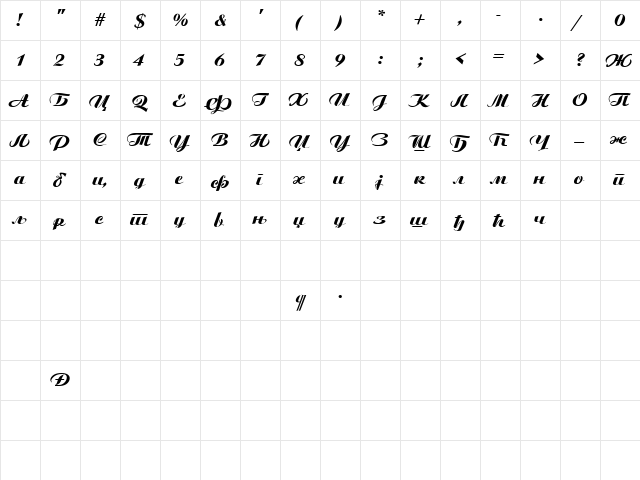
Ariston Cirilica Bold Italic Font Preview
Design Context for Ariston Cirilica Typeface
Ariston Cirilica is a composed and adaptable typeface that performs quietly and consistently across a wide range of design contexts. The dynamic lean of this cut emphasises speed and emphasis in any layout. The heavy weight commands attention and anchors typographic hierarchies.